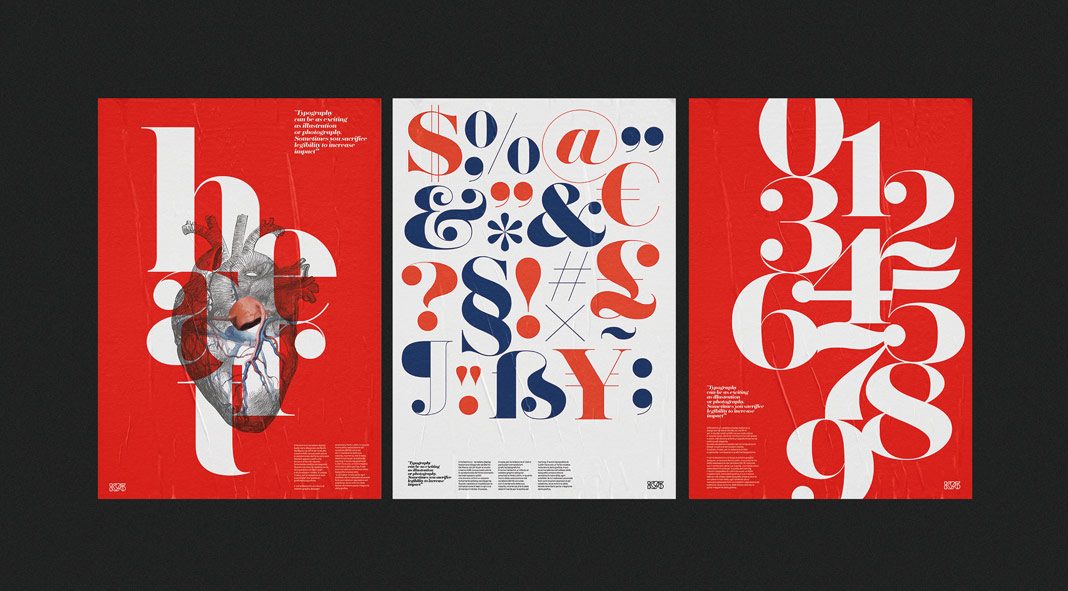
Typographic poster designs created by Studio K95 to promote the release of the Herbert Typeface.
Studio K95 is a Catania, Italy based creative agency specializing in branding, type design, UI/UX, publishing, web design, and event design. To celebrate the release of their new typeface called “Herbert”, they have created a series of 10 typographic posters. The release of the font is scheduled for April 2019 and from what we can see, this Didone typeface seems to be an absolute beauty. The font will be available in four different styles: Regular, Stencil, Semi-Sans, and Italic. Just have a look at the posters below. For more of Studio K95’s creative work, please visit their website.